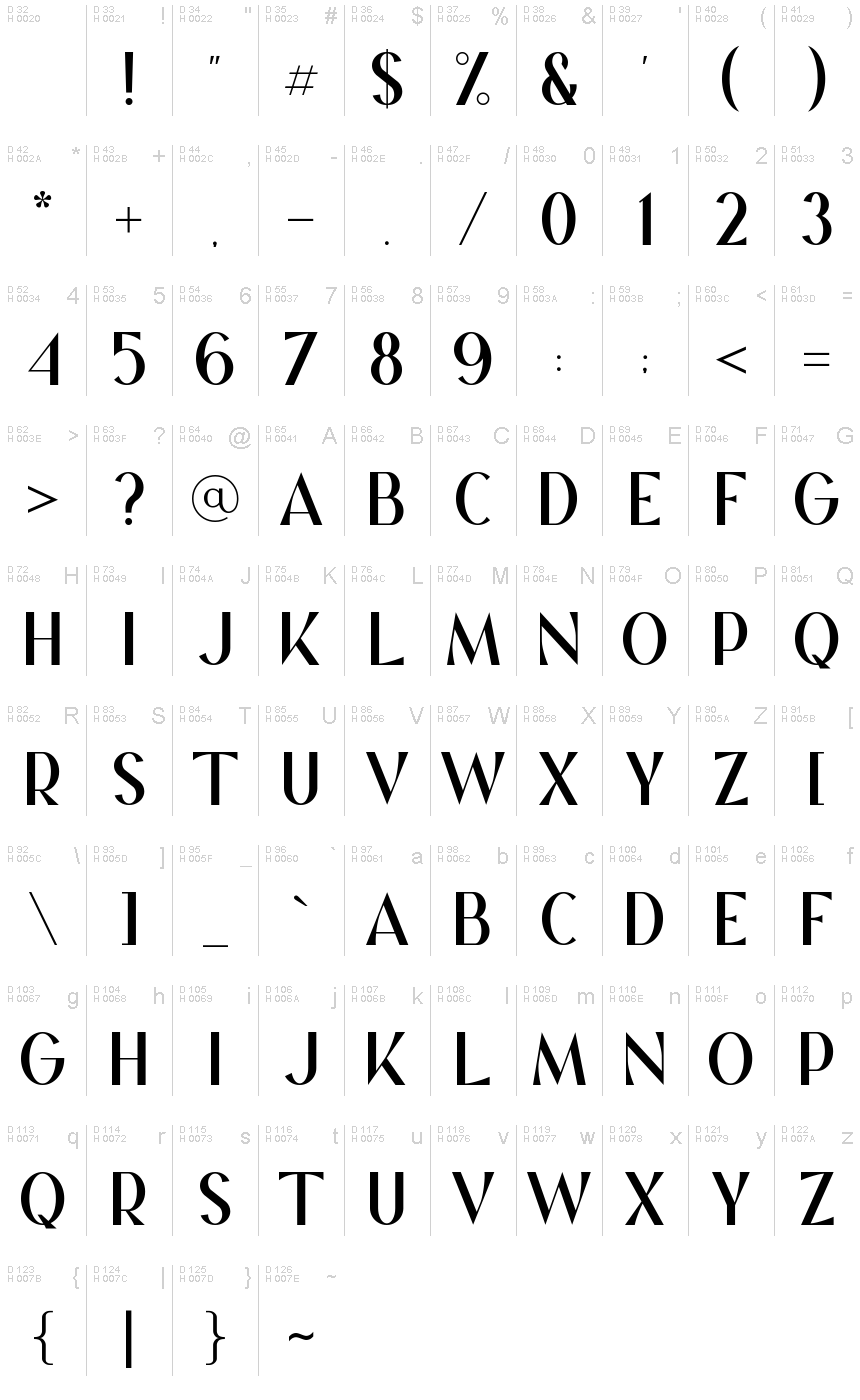
Koma
Koma, a striking font designed by Heinzel Std, commands attention with its bold, assertive presence. Characterized by its thick, authoritative strokes and angular, geometric forms, this font exudes a sense of strength and confidence. Its imposing aesthetic lends itself seamlessly to headlines, titles, and branding applications where a powerful, impactful visual statement is desired.
Koma's versatility extends beyond bold usages, as its unique character can also be leveraged for more modern, editorial-style layouts, adding a touch of sophistication and visual interest.
Whether used to convey a sense of gravitas, modernity, or pure creative flair, Koma's distinctive style is sure to captivate and engage audiences across a wide range of design contexts.